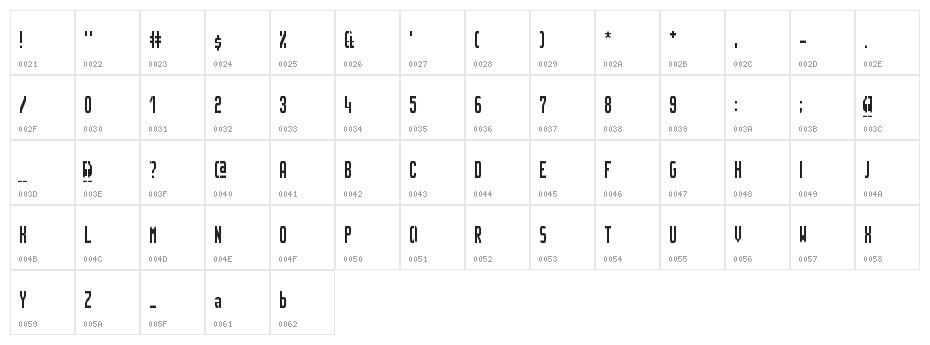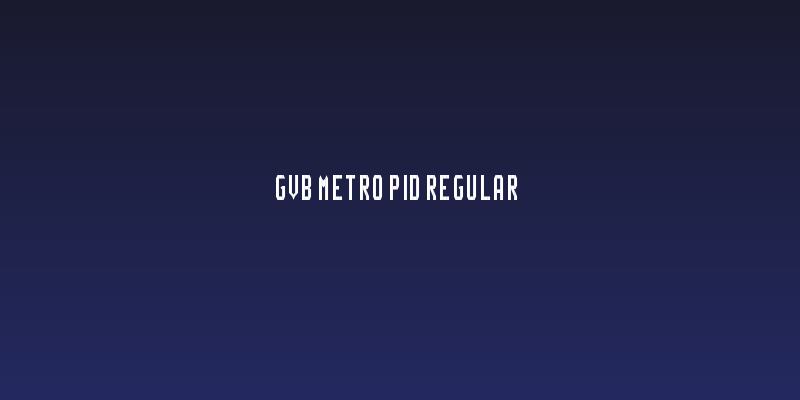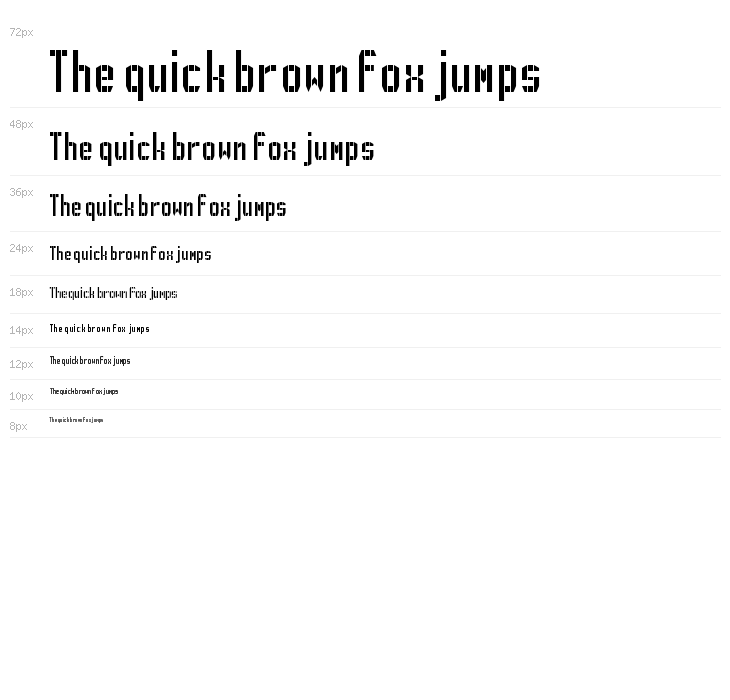
GVB metro pid Regular Font
GVB metro pid Regular Description
This font features a unique, pixelated design that gives it a digital and modern appearance. Each character is constructed with a series of blocky, rectangular shapes that create a distinct, futuristic look. The uppercase and lowercase letters maintain a consistent style, with sharp angles and uniform spacing. Numbers and special characters follow the same geometric pattern, ensuring a cohesive visual identity. The font's design is reminiscent of early digital displays, making it ideal for projects that require a tech-savvy or retro aesthetic.